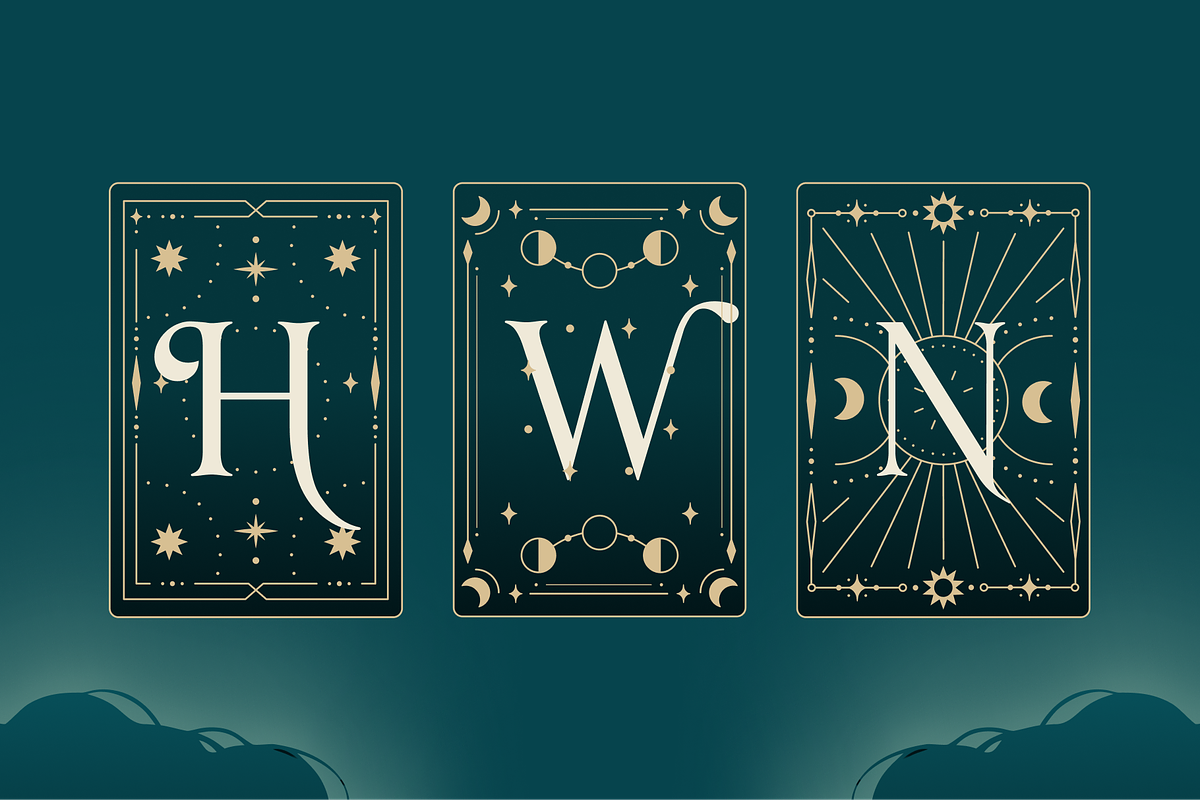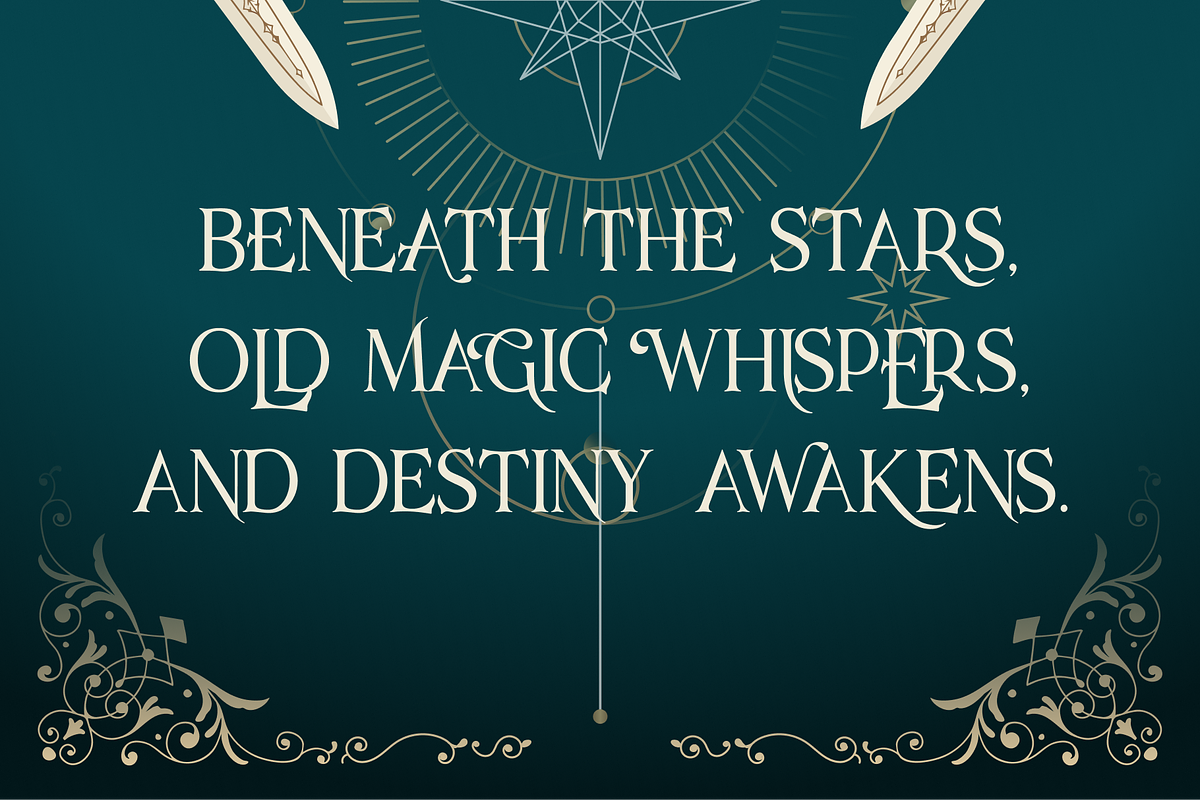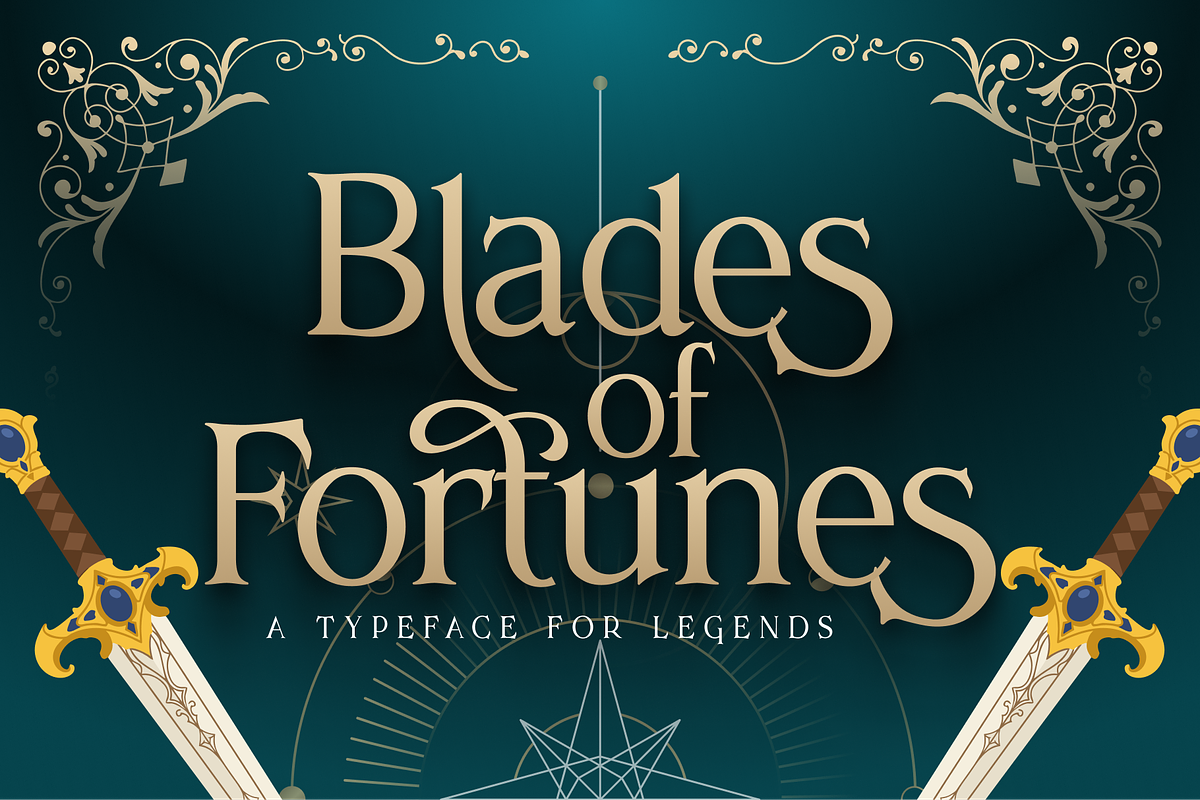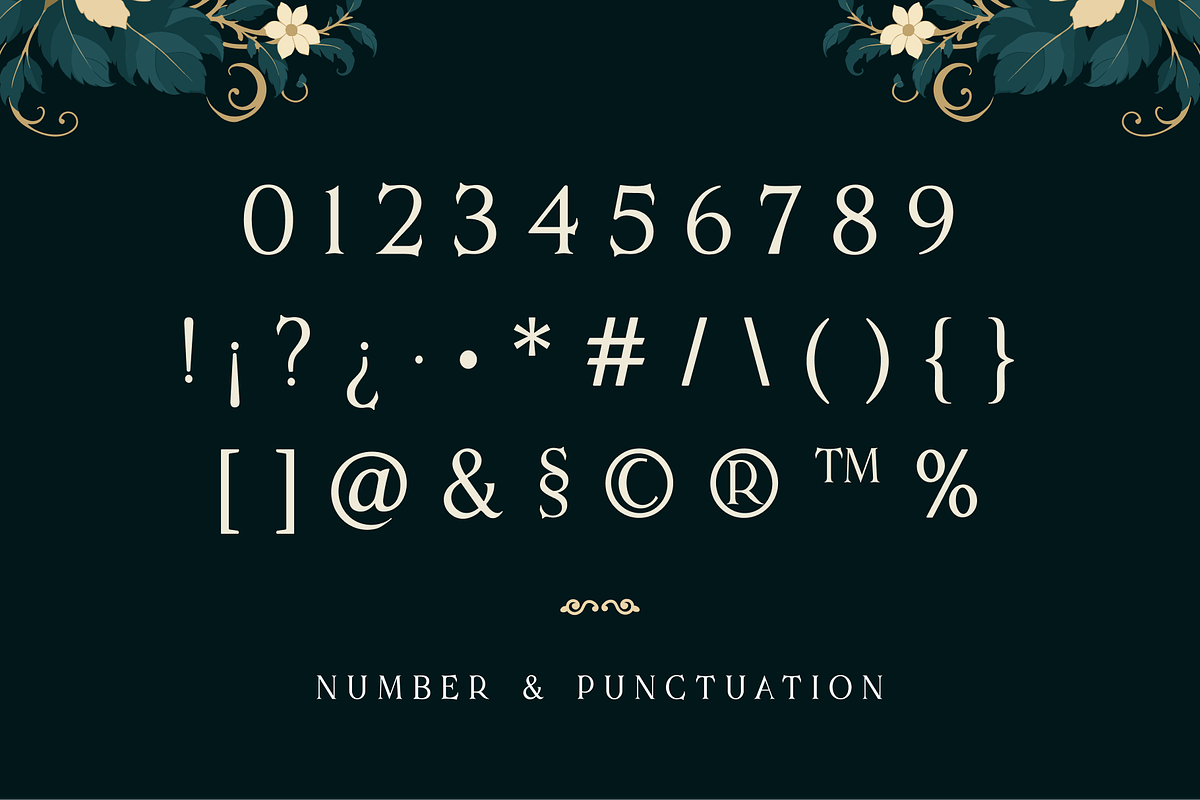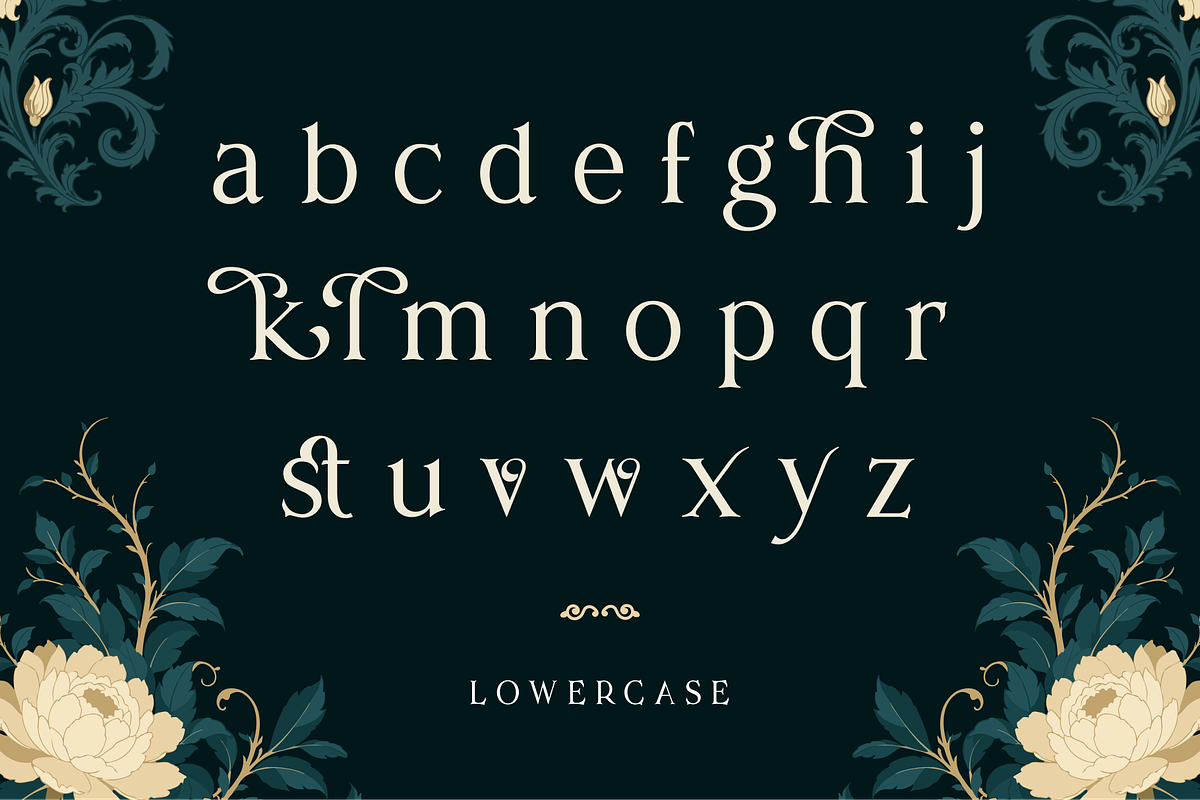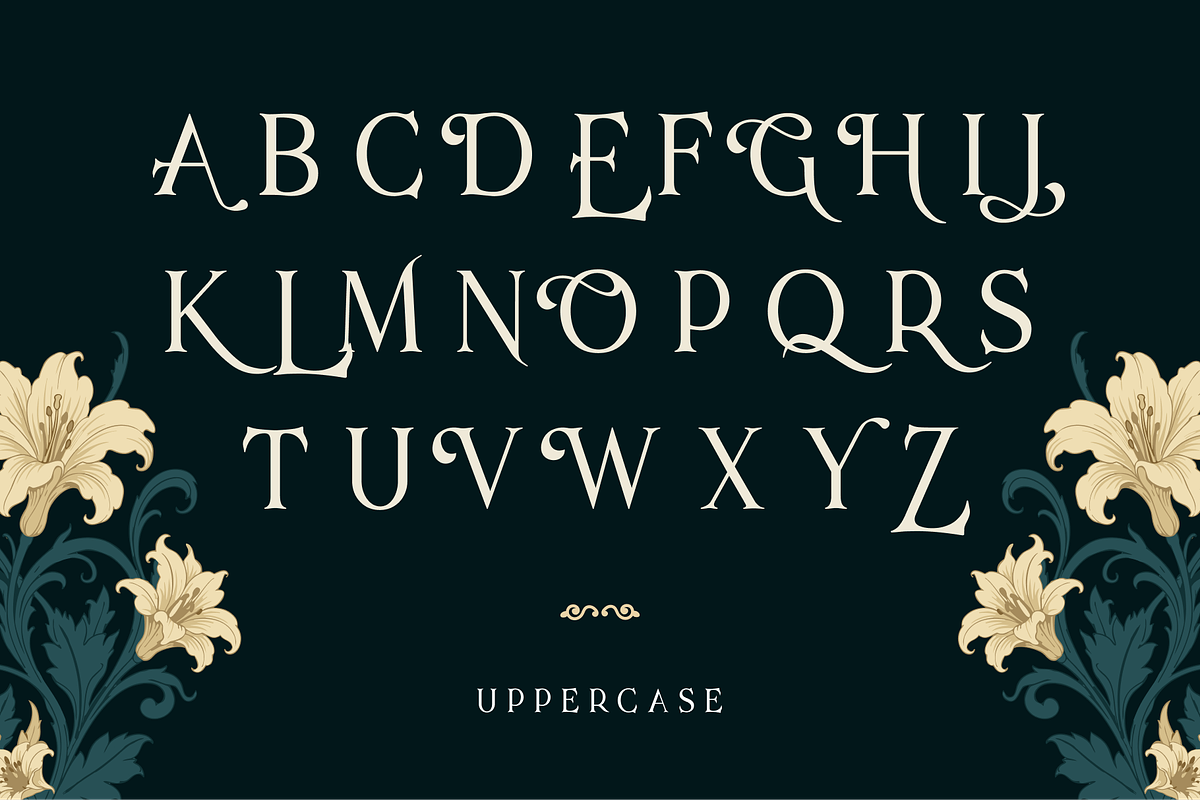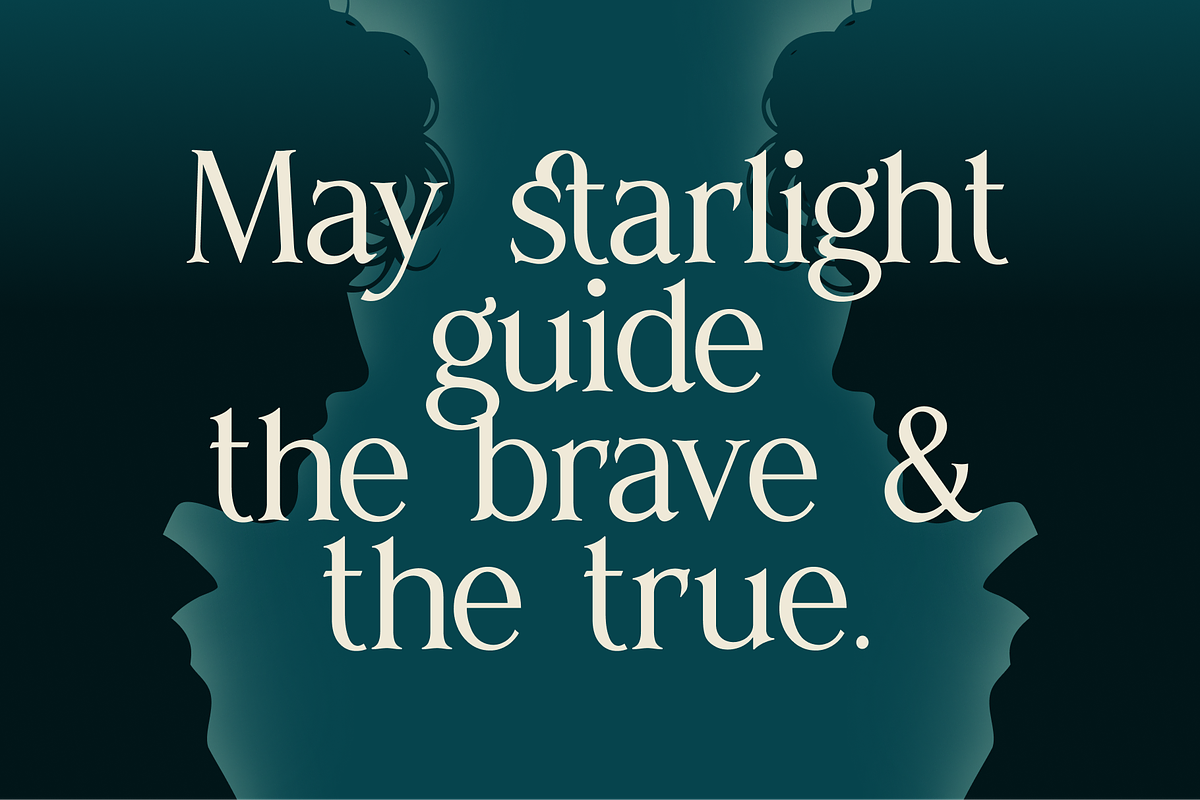
Blades of Fortunes
Elevate your design with Blades of Fortunes, an elegant display serif typeface featuring high stroke contrast, dramatic swashes, and sharp terminals. Perfect for fantasy book covers, RPG branding, and epic cinematic titles.
ligature and alternates feature